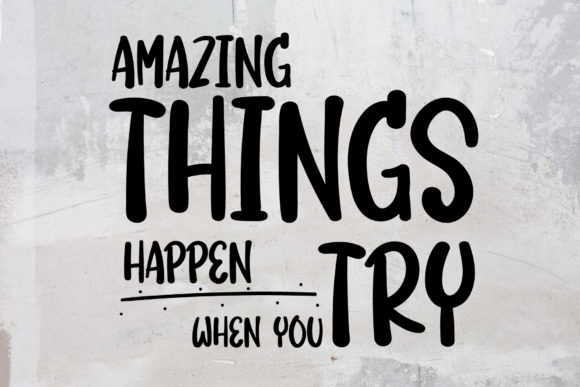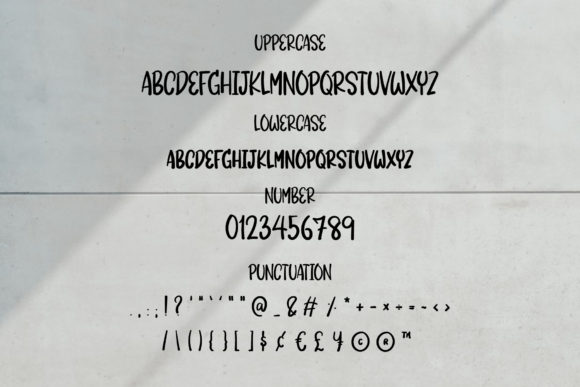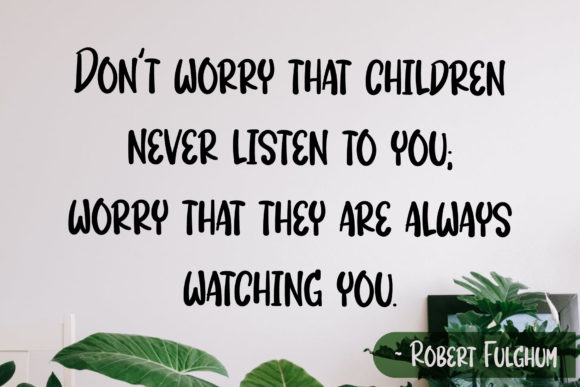
Introduction to Joyful Kids Font
Joyful Kids is a simple, sloppy and sweet lettered handwritten font.
Add this unedited and quirky font to your creations, and notice how they come alive .
Key Features of Joyful Kids Font
Why Choose Joyful Kids Font?
Joyful Kids Font offers exceptional quality and versatility, making it a valuable addition to your design toolkit. Whether you’re creating for personal projects or commercial use, Joyful Kids Font delivers professional results.